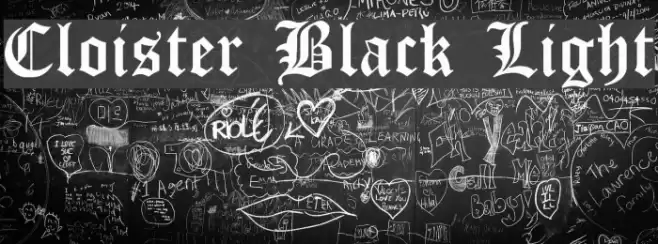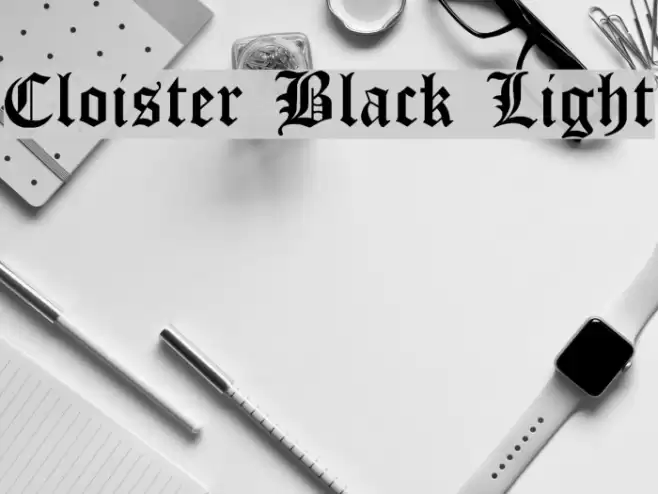
Cloister Black Light Font
Cloister Black Light Description
This font exudes a classic and historical aura, reminiscent of medieval manuscripts and traditional calligraphy. The characters are intricately designed with sharp, angular strokes and elaborate serifs, giving it a distinct Gothic appearance. The uppercase letters are particularly ornate, featuring elaborate flourishes and a strong vertical emphasis. The lowercase letters maintain the same stylistic elements but are slightly more subdued, ensuring readability. Numbers and special characters are crafted with the same attention to detail, making them cohesive with the overall design. This font is perfect for projects that require a touch of elegance and historical depth.
A classic Gothic-style font with intricate, angular strokes and elaborate serifs from Gothic fonts.
- Proposed Projects: Ideal for historical documents, wedding invitations, book covers, and branding that requires a vintage or medieval touch.
- Overall Style: Vintage